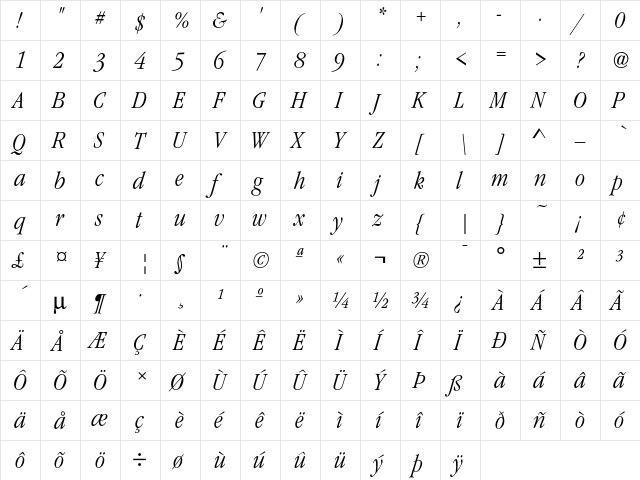
GaramItcTLigConIta Regular
Design Context for GaramItcTLigConIta Typeface
GaramItcTLigConIta takes a measured approach to typography — its balanced proportions and neutral character make it a reliable workhorse for both digital and print work.
Pro Tip: Use GaramItcTLigConIta in both headline and body roles to test its range before committing to a single application.